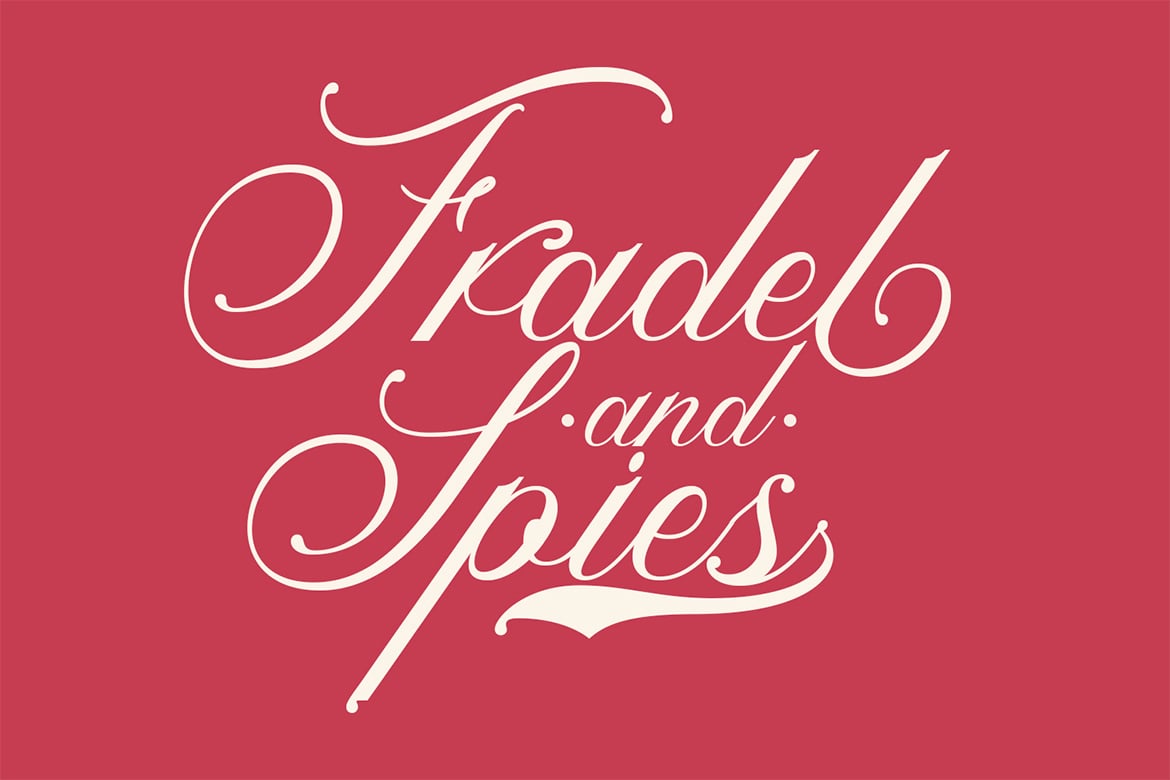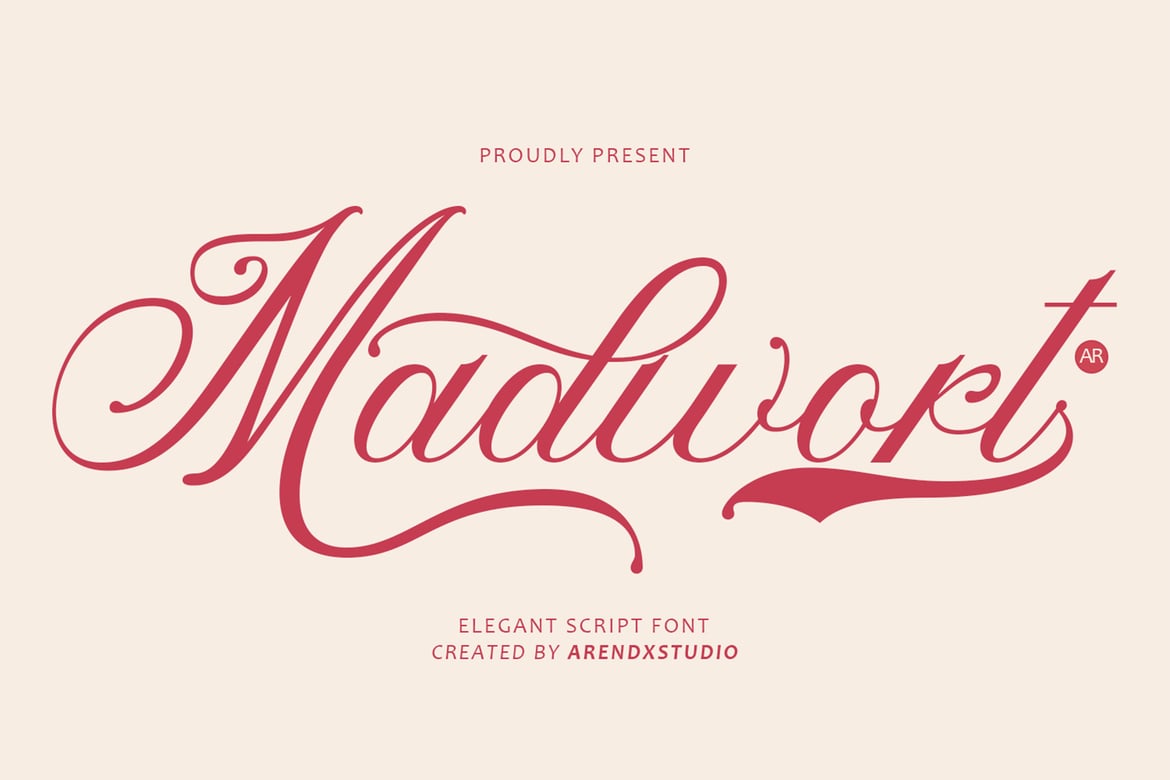
Madwort – Elegant Script Font
Overall, “Madwort” is an elegant script font that effortlessly combines timeless sophistication with intricate detailing and versatility. Whether used for formal invitations or luxurious branding, this font adds an element of refinement and class to any design project.